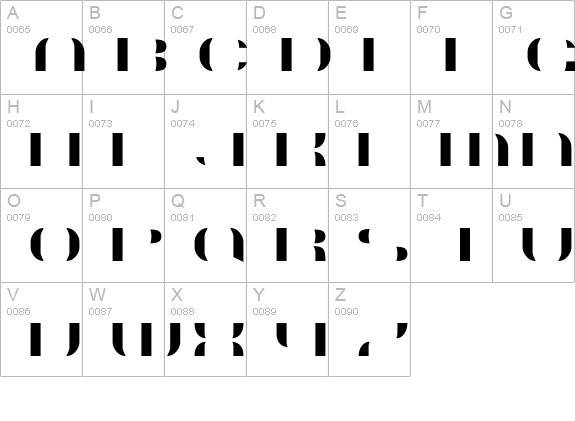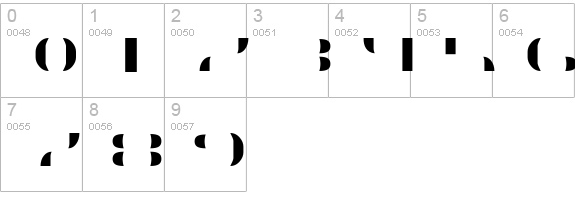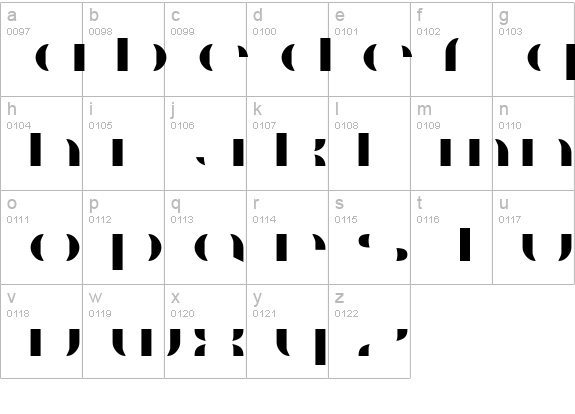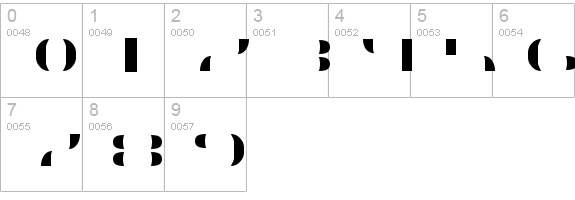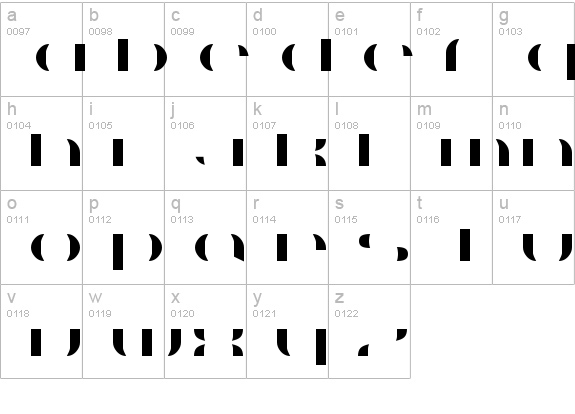
Suncatcher Fill Font Details
Suncatcher Fill font is a whimsical and playful typeface that captures the essence of sunlight dancing through stained glass windows. Its intricate details and playful curves evoke a sense of warmth and joy, making it the perfect choice for projects that require a touch of magic and charm. Designed with creativity in mind, Suncatcher Fill font is a versatile typeface that can be used for a wide range of design projects, from invitations and posters to branding and packaging. Its unique character and delightful charm will surely make your designs stand out and leave a lasting impression on your audience. The best part? Suncatcher Fill font is available for free download at FontsMarket.com, making it easily accessible to designers and creatives looking to add a touch of whimsy to their projects without breaking the bank. Don't miss out on this opportunity to bring a little bit of sunshine into your designs with Suncatcher Fill font!